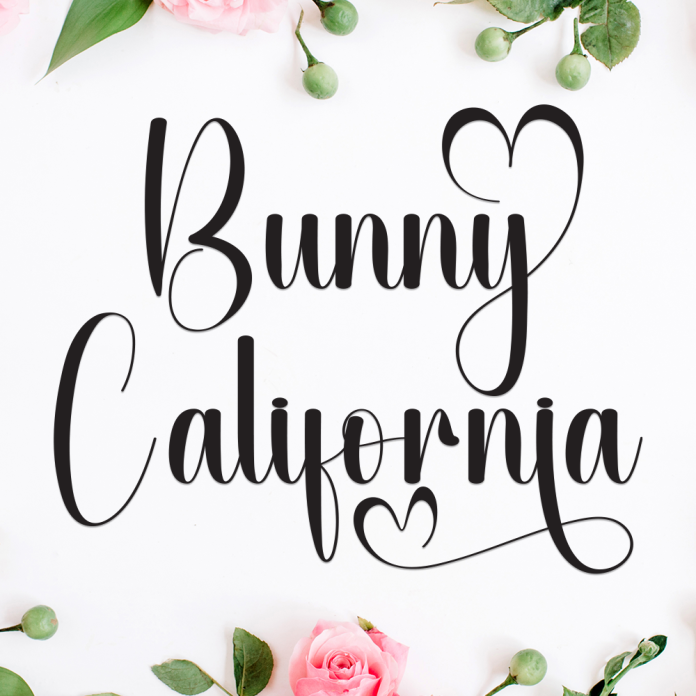
Bunny California is a delightful handwriting font that blends playful charm with West Coast vibes. With its soft curves and cheerful strokes, this font adds a personal, sunny touch to any creative project.
Perfect for Easter themes, kids' designs, social media posts, greeting cards, and cute branding, Bunny California brings happiness and a handwritten feel to your artwork.
Light-hearted and smooth handwritten style
Fun, whimsical letterforms with a natural flow
Ideal for children’s themes, springtime, lifestyle designs, and personal projects
Bring smiles and sunshine to your designs with Bunny California — the handwriting font full of charm and character.